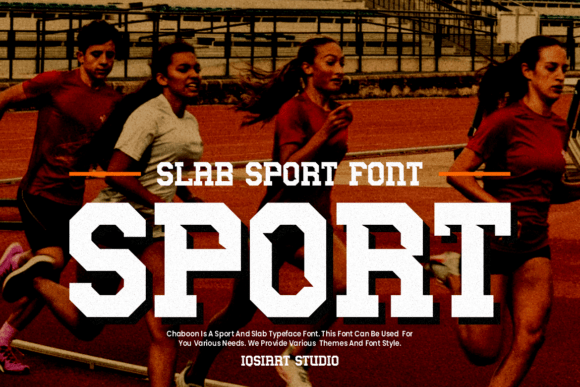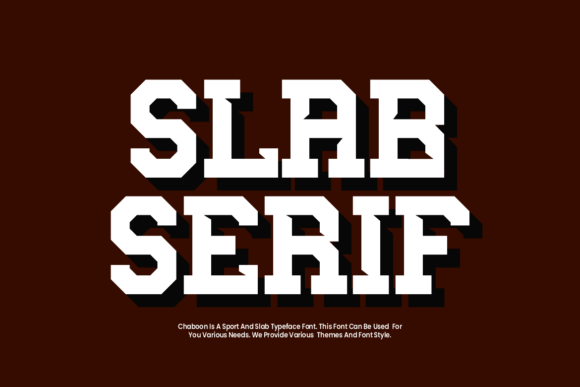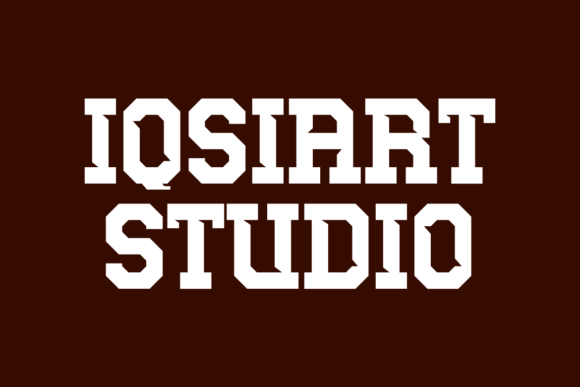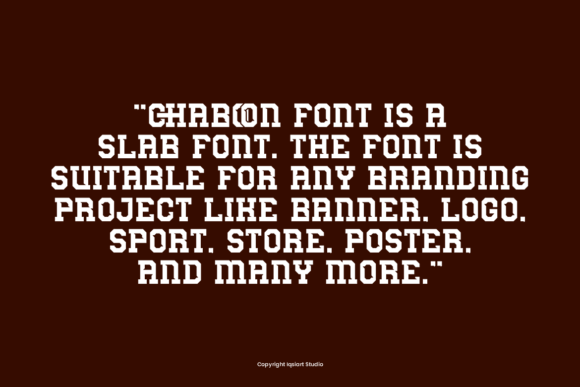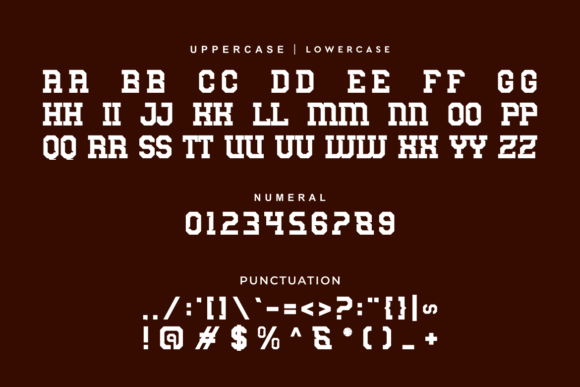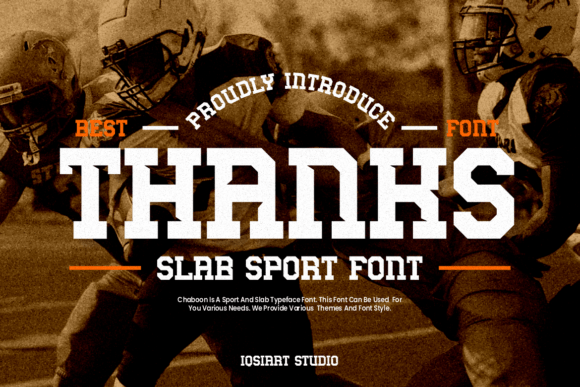
Introducing Chaboon Font: The Ultimate Choice for Bold and Sporty Designs
In the world of typography, fonts play a crucial role in conveying the tone and personality of a brand or design. For designers and crafters looking for a bold and sporty typeface, Chaboon Font is an excellent choice. This slab sport font is specifically designed to capture the power and intensity of athletic design, making it perfect for sports branding, team logos, event posters, and bold headlines.
The Power of Chaboon Font
Chaboon Font boasts strong, blocky letterforms and sharp slab serifs that exude confidence and energy. Its solid construction and geometric precision give it a versatile edge, allowing it to work equally well in print and digital formats. Whether you’re designing a logo for a sports team, creating an event poster, or simply looking for a bold typeface to make a statement, Chaboon Font is the perfect choice.
Key Features of Chaboon Font
- Bold and Sporty Design: Chaboon Font features a bold and sporty design that is perfect for sports branding, team logos, and event posters.
- Strong and Blocky Letterforms: The font’s strong and blocky letterforms give it a commanding presence, making it perfect for bold headlines and titles.
- Sharp Slab Serifs: The sharp slab serifs add a touch of sophistication and elegance to the font, making it suitable for a wide range of design applications.
- PUA-Encoded: Chaboon Font is PUA-encoded, allowing effortless access to all glyphs, swashes, and alternate characters.
- Versatile and Geometric: The font’s solid construction and geometric precision make it versatile and suitable for both print and digital formats.
Why Choose Chaboon Font?
For designers and crafters looking for a typeface that combines strength, clarity, and high-impact visual appeal, Chaboon Font is an excellent choice. Its commanding presence and modern sport-inspired style make it a go-to choice for a wide range of design applications, including:
- Sports branding and team logos
- Event posters and flyers
- Bold headlines and titles
- Digital and print designs
Tips for Using Chaboon Font
To get the most out of Chaboon Font, here are a few tips:
- Use it boldly: Chaboon Font is designed to make a statement, so don’t be afraid to use it boldly and prominently in your designs.
- Experiment with colors: The font’s strong and blocky letterforms make it suitable for a wide range of colors and color combinations.
- Pair it with other fonts: Chaboon Font can be paired with other fonts to create a unique and visually appealing design.
In conclusion, Chaboon Font is an excellent choice for designers and crafters looking for a bold and sporty typeface. Its strong and blocky letterforms, sharp slab serifs, and solid construction make it perfect for sports branding, team logos, event posters, and bold headlines. With its PUA-encoded design and versatile edge, Chaboon Font is a go-to choice for designers seeking a typeface that combines strength, clarity, and high-impact visual appeal.
Overall, Chaboon Font is an excellent addition to any designer’s font library, and its bold and sporty design is sure to make a statement in any design project.